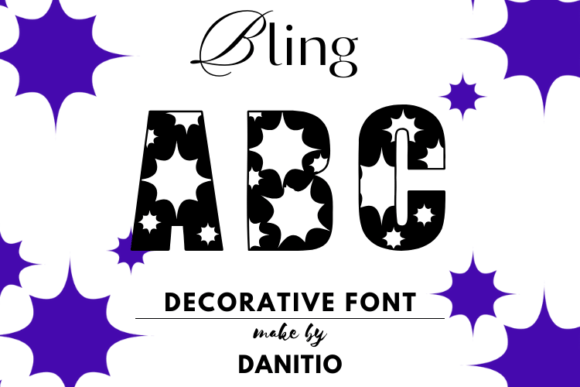
Bling Font: Add a Touch of Glamour to Your Creative Projects
Are you looking for a font that can add a touch of glamour and sophistication to your creative projects? Look no further than the Bling Font. This fun and cool decorative font is perfect for anyone who wants to make their designs stand out from the crowd. In this article, we’ll take a closer look at the Bling Font, its features, and how you can use it to take your creative projects to the next level.
What is Bling Font?
Bling Font is a decorative font that is designed to add a touch of luxury and glamour to your designs. It’s a fun and cool font that’s perfect for creating eye-catching headlines, titles, and other design elements. The font features a unique and stylish design that’s sure to grab attention and make your designs stand out.
Features of Bling Font
The Bling Font has several features that make it a great choice for your creative projects. Here are some of its key features:
- Unique Design: The Bling Font features a unique and stylish design that’s sure to grab attention.
- Decorative: The font is highly decorative, making it perfect for creating eye-catching headlines and titles.
- Fun and Cool: The Bling Font is a fun and cool font that’s perfect for adding a touch of personality to your designs.
Benefits of Using Bling Font
There are several benefits to using the Bling Font in your creative projects. Here are some of the main benefits:
- Adds a Touch of Glamour: The Bling Font adds a touch of glamour and sophistication to your designs.
- Grabs Attention: The font is designed to grab attention and make your designs stand out from the crowd.
- Versatile: The font is versatile and can be used in a variety of design projects, from brochures and flyers to websites and social media graphics.
Best Uses for Bling Font
The Bling Font is a versatile font that can be used in a variety of design projects. Here are some of the best uses for the font:
- Headlines and Titles: The Bling Font is perfect for creating eye-catching headlines and titles.
- Logos and Branding: The font can be used to create logos and branding elements that are sure to grab attention.
- Social Media Graphics: The Bling Font can be used to create social media graphics that are sure to stand out from the crowd.
- Advertising: The font can be used in advertising materials, such as brochures and flyers, to add a touch of glamour and sophistication.
Tips and Tricks for Using Bling Font
Here are some tips and tricks for using the Bling Font:
- Use it Sparingly: The Bling Font is a decorative font that’s best used sparingly. Use it for headlines and titles, but not for body text.
- Choose the Right Color: Choose a color that complements the Bling Font. A bold and bright color can help the font stand out.
- Experiment with Different Sizes: Experiment with different sizes to find the one that works best for your design.
- Combine it with Other Fonts: Combine the Bling Font with other fonts to create a unique and stylish design.
The Bling Font is a fun and cool decorative font that’s perfect for adding a touch of glamour and sophistication to your creative projects. With its unique design, ease of use, and versatility, it’s a great choice for anyone who wants to make their designs stand out from the crowd. By following the tips and tricks outlined in this article, you can use the Bling Font to create eye-catching designs that are sure to grab attention.
- Q: What is the Bling Font?
A: The Bling Font is a decorative font that’s designed to add a touch of glamour and sophistication to your designs.